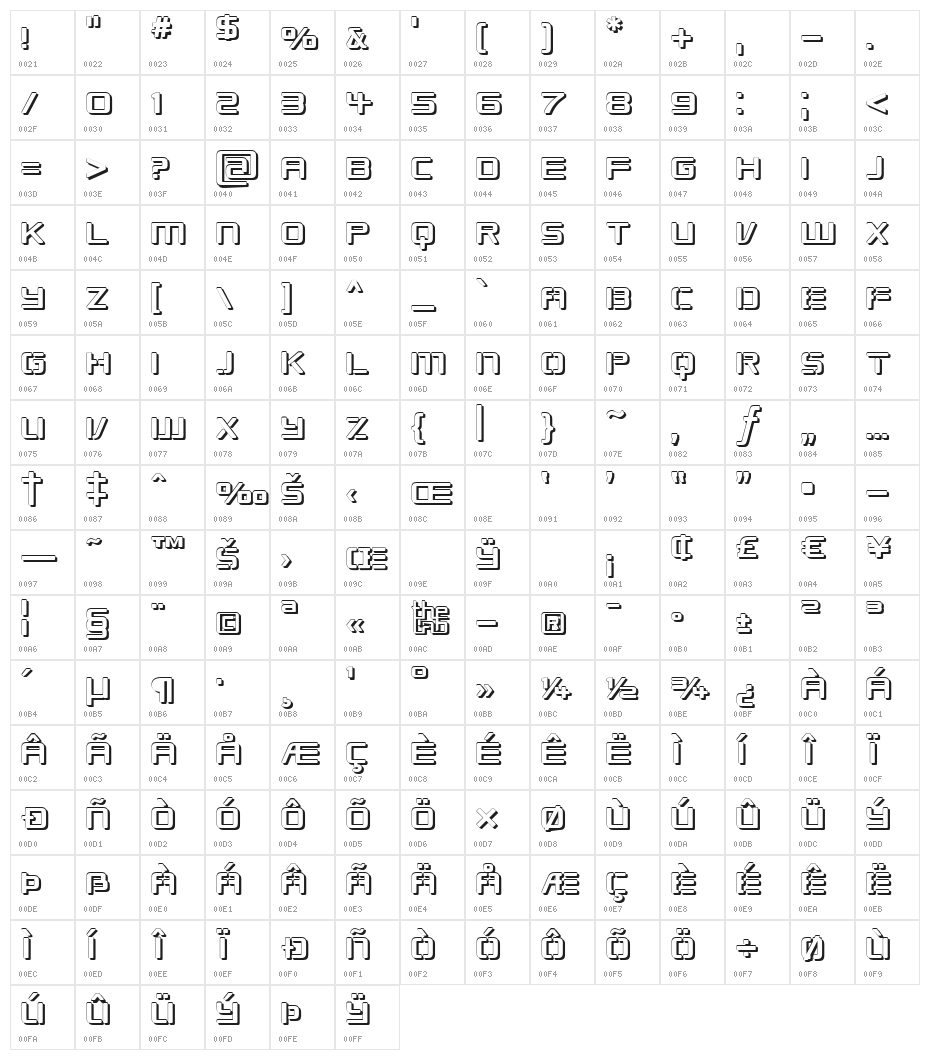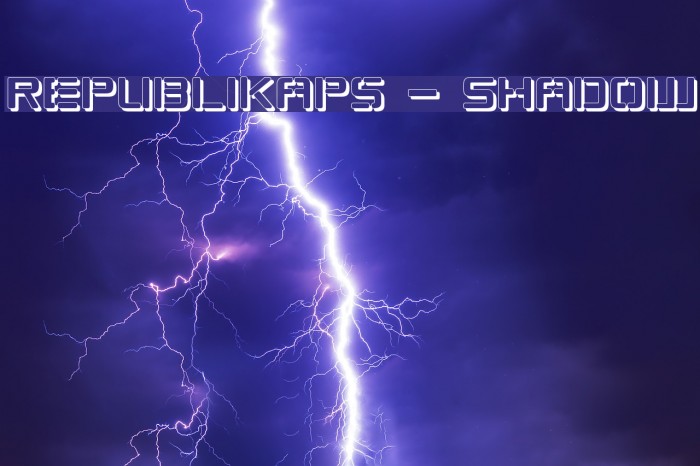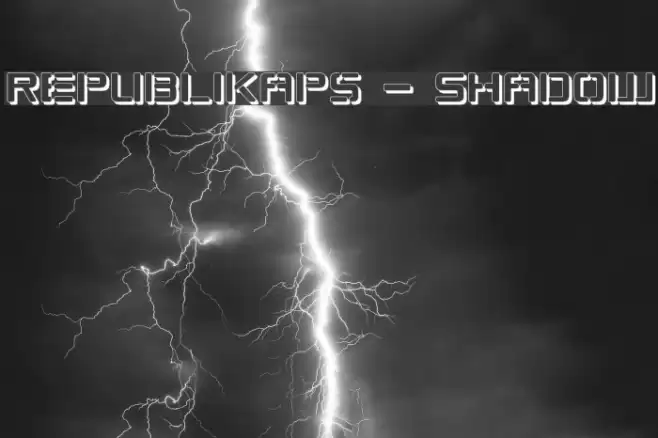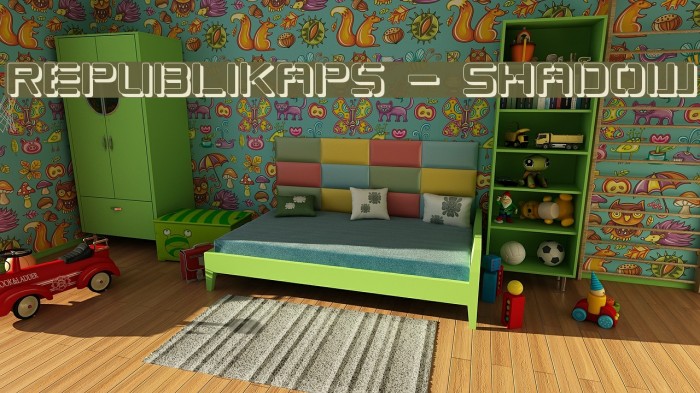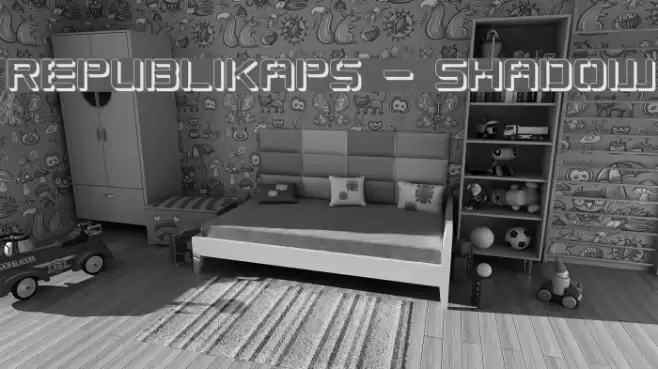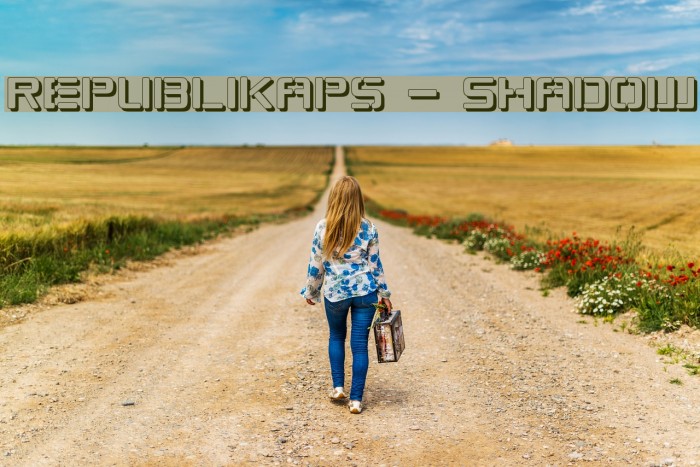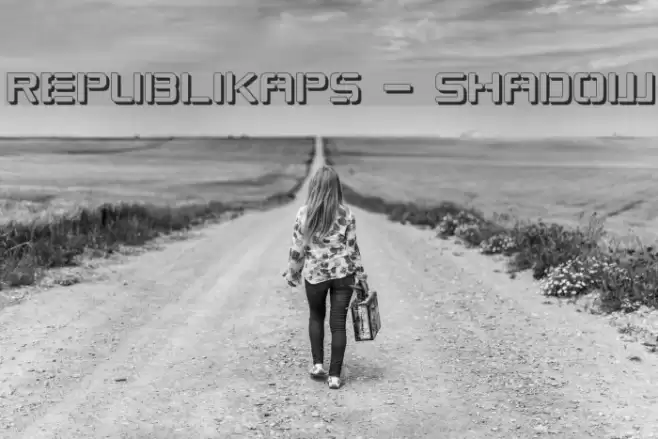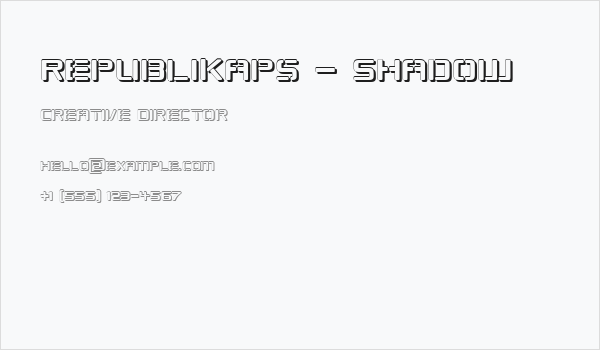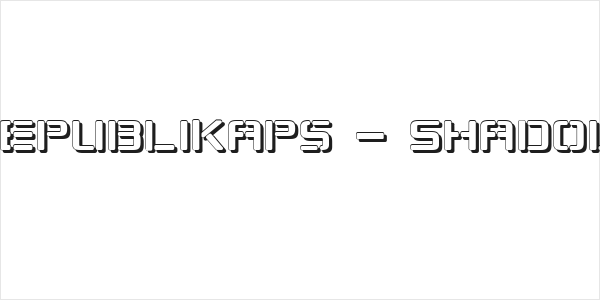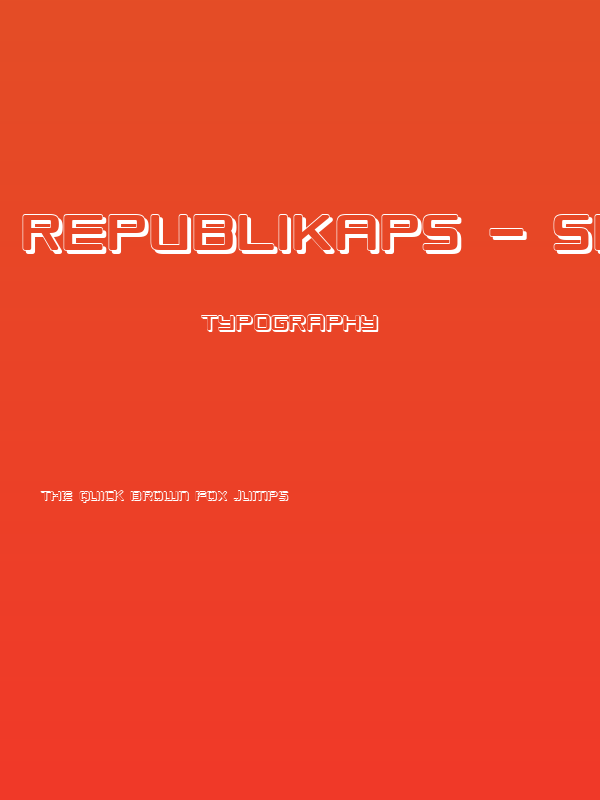
Republikaps - Shadow Font
Republikaps - Shadow Description
This font features a bold and modern design with a distinct shadow effect that adds depth and dimension to each character. The uppercase and lowercase letters maintain a consistent geometric structure, creating a cohesive and uniform appearance. The numerals and special characters are designed with the same shadowed style, ensuring a seamless integration across various uses. The font's clean lines and sharp angles make it highly legible, while the shadow effect provides a unique visual interest. This style is particularly effective for creating eye-catching headlines and titles.
Proposed ProjectsThis font is perfect for projects that require a strong visual impact, such as branding, advertising, posters, and digital media. Its unique style can enhance logos, packaging, and promotional materials.